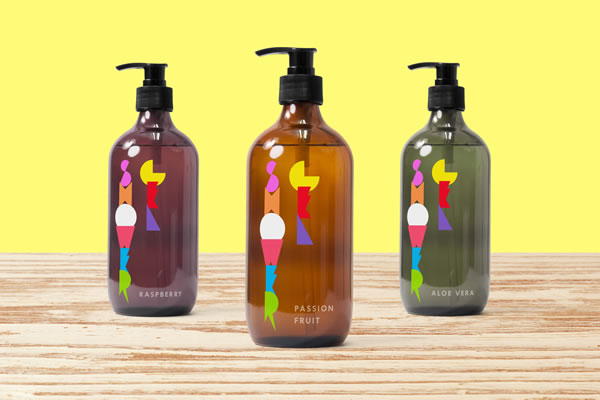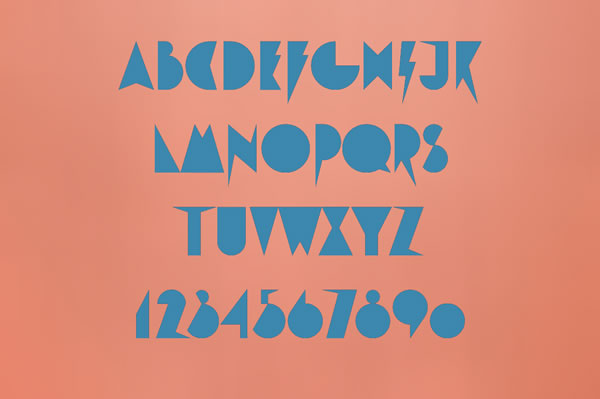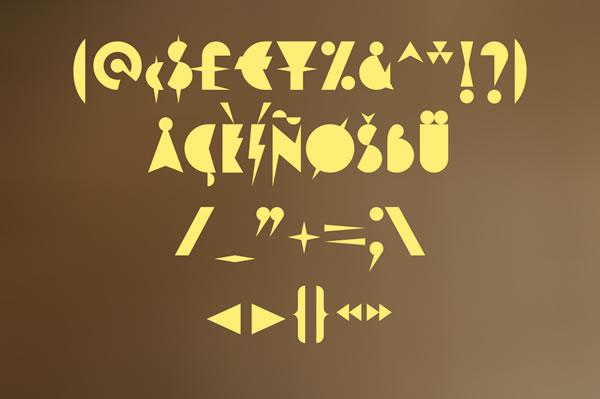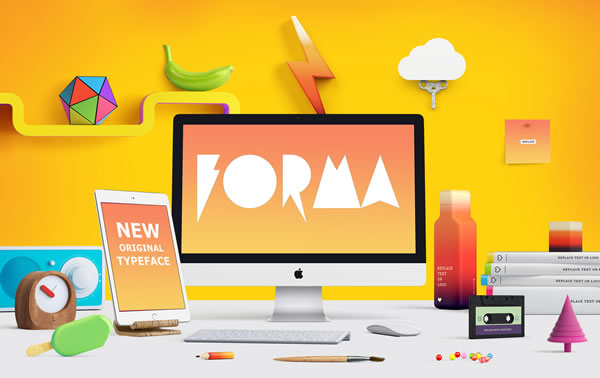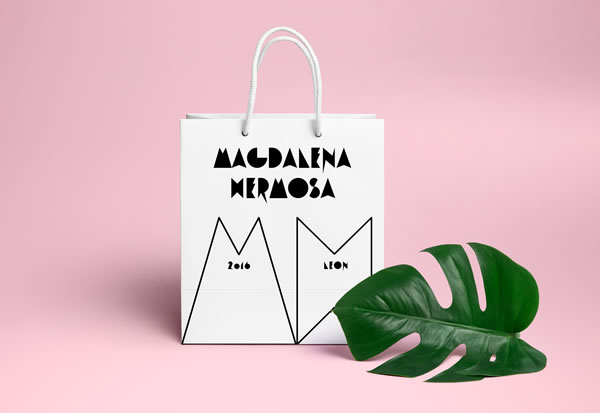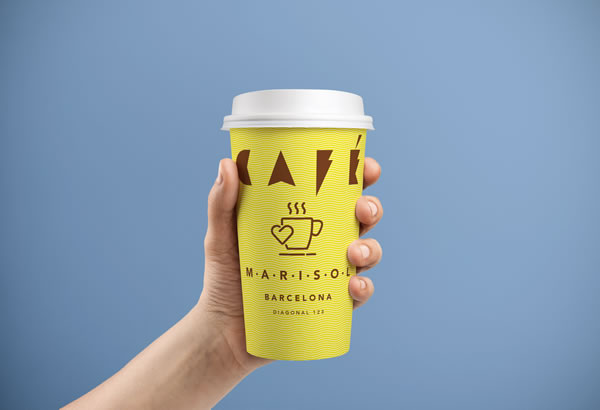
Discover the Unique Charm of Forma Font: A Creative Masterpiece by Etewut
In the world of typography, a new font has emerged to capture the attention of designers and crafters alike. Meet Forma Font, a distinctive typeface created by the talented Etewut. This innovative font is set to revolutionize the way we approach design, offering a fresh perspective on modern typography.
The Genesis of Forma Font
Etewut, a visionary designer, has always been passionate about creating unique and functional typefaces. With Forma Font, Etewut aimed to craft a font that not only stands out but also communicates effectively. The result is a masterpiece that seamlessly blends modernity with elegance.
Key Features of Forma Font
Forma Font boasts several key features that make it an attractive choice for designers:
- Unique Character Set: Forma Font features a distinctive character set that sets it apart from other typefaces. Each letter is carefully crafted to convey a sense of sophistication and style.
- Modern Aesthetic: The font’s modern aesthetic makes it perfect for designs that require a contemporary look and feel.
- Versatility: Forma Font is incredibly versatile, making it suitable for a wide range of applications, from branding and advertising to packaging and digital media.
- Legibility: Despite its unique design, Forma Font remains highly legible, ensuring that your message is conveyed clearly and effectively.
What Makes Forma Font Special?
Forma Font’s uniqueness lies in its ability to balance style and functionality. Etewut’s meticulous attention to detail has resulted in a font that is both visually stunning and highly functional. Whether you’re designing a logo, brochure, or website, Forma Font is sure to elevate your design to the next level.
Applications of Forma Font
Forma Font’s versatility makes it an excellent choice for various design applications, including:
- Branding and Identity: Create a lasting impression with Forma Font’s unique and memorable design.
- Advertising and Marketing: Stand out in a crowded market with Forma Font’s modern and attention-grabbing aesthetic.
- Packaging Design: Add a touch of elegance and sophistication to your packaging with Forma Font.
- Digital Media: Enhance your digital presence with Forma Font’s clean and legible design.
Tips for Using Forma Font Effectively
To get the most out of Forma Font, consider the following tips:
- Experiment with Font Sizes: Forma Font’s unique design shines at various font sizes. Experiment to find the perfect balance for your design.
- Pair with Complementary Fonts: Combine Forma Font with complementary fonts to create visual interest and hierarchy.
- Pay Attention to Line Spacing: Ensure optimal line spacing to maintain readability and flow.
Forma Font is a game-changing typeface that offers designers and crafters a fresh perspective on modern typography. With its unique character set, modern aesthetic, and versatility, Forma Font is poised to become a go-to choice for various design applications. Get ready to elevate your designs with Etewut’s stunning creation – Forma Font.